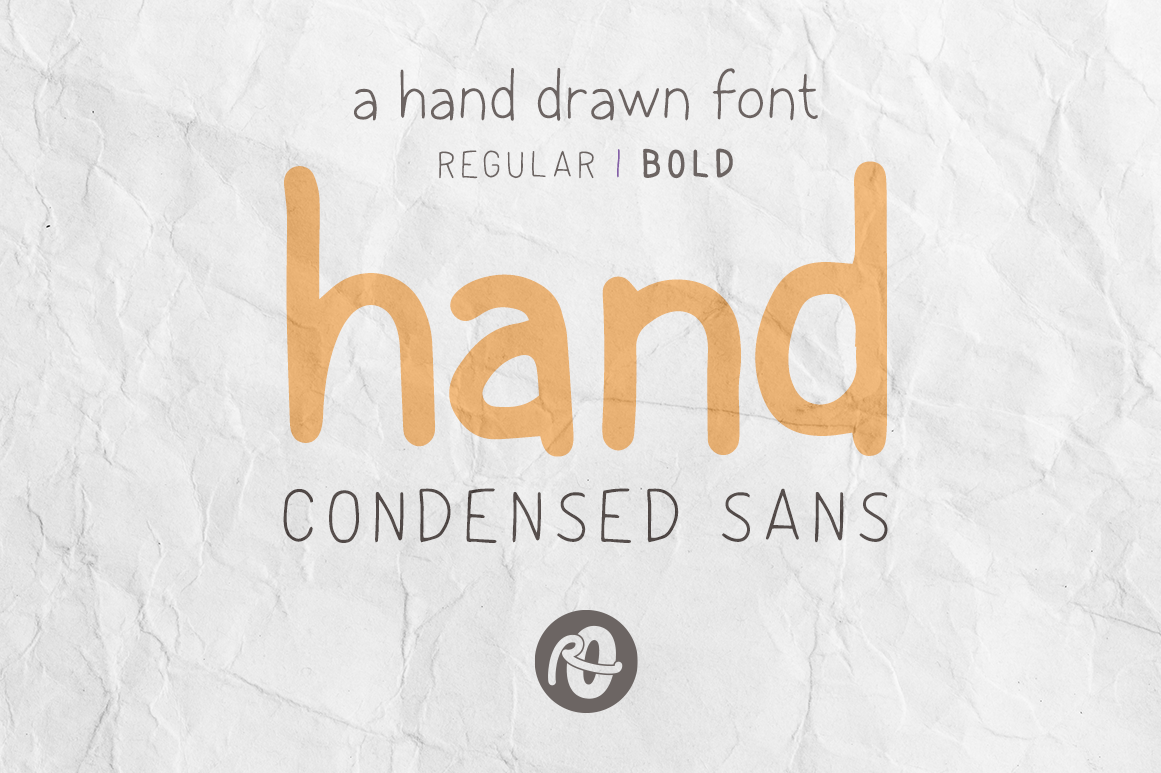
Hand Condensed Sans: hand drawn font
Hand Condensed Sans is a hand drawn font. It’s fun, with structure. Its look and function work well for branding, packaging & editorial design.
Two weights. See type sample images for included glyphs.